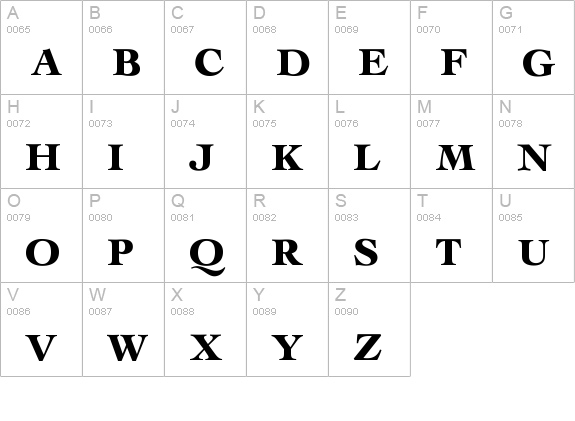
Geronimo Font Details
Geronimo font is a modern and stylish typeface that exudes elegance and sophistication. With its clean lines and contemporary feel, this font is perfect for a wide range of design projects, from branding to invitations to social media graphics. The sleek curves and sharp angles of Geronimo font make it stand out from the crowd, giving your text a unique and eye-catching look. The best part? Geronimo font is available for free download at FontsMarket.com. That's right, you can get your hands on this stunning typeface without spending a dime. Whether you're a designer looking to add a fresh twist to your work or a hobbyist looking to experiment with new fonts, Geronimo font is the perfect choice. Download it today and see the difference it can make in your projects!